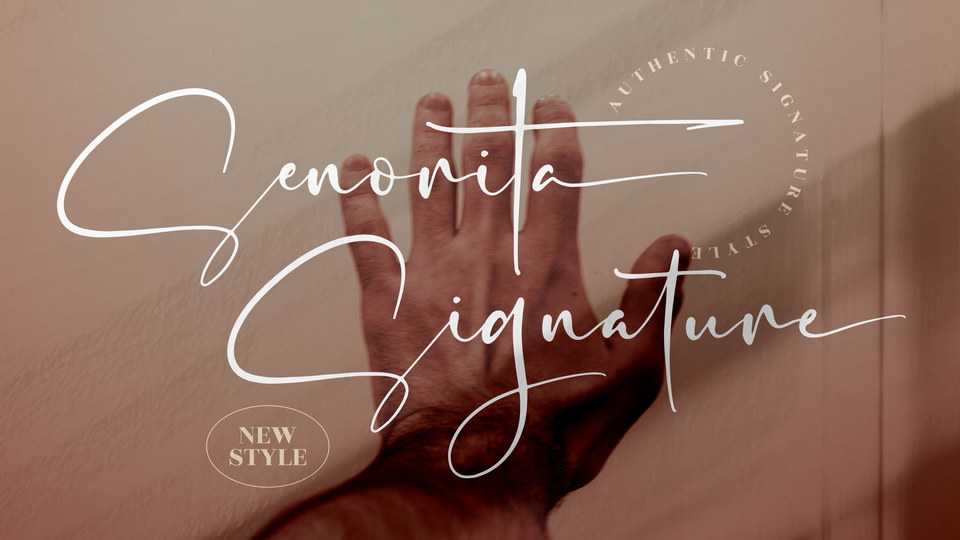
Download Senorita Signature font, a beautiful and natural script typeface. Senorita Signature has a classy, elegant and modern look that can be used for logos, branding, invitations, stationery, wedding designs, social media posts, and much more.